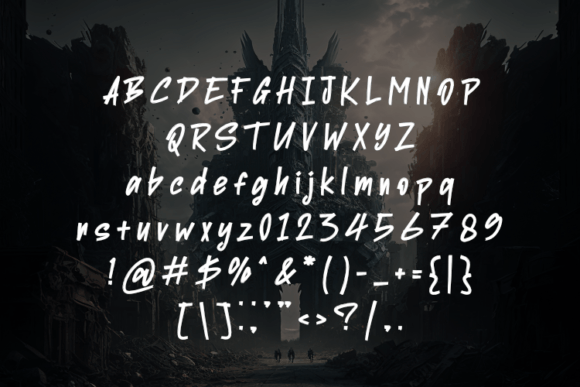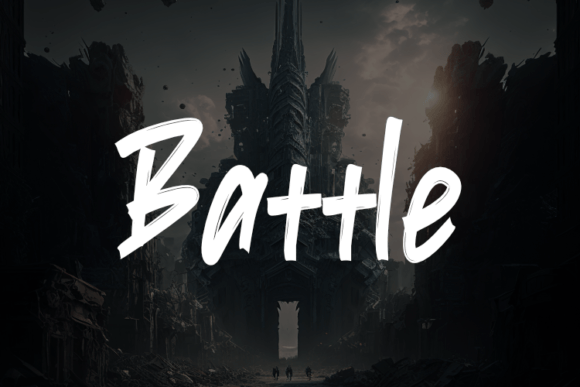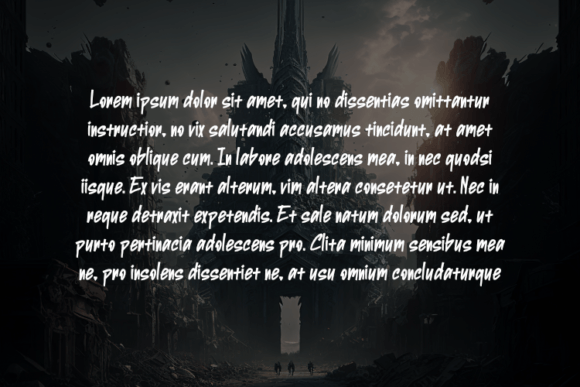
Unlock the Power of Games Street Font
Have you ever found yourself staring at a blank canvas, waiting for the perfect font to spark your creativity? For many designers, this is a familiar feeling – the moment when the right font can make all the difference between a good design and a great one. That’s where the Games Street Font comes in – a dynamic, versatile font that adds a touch of style and boldness to any design.
This creative tool is designed to elevate your design portfolios, whether you’re working on clothing, t-shirts, or a wide range of other products. With its striking appeal and adaptability, the Games Street Font seamlessly integrates into various software applications, making it a valuable asset for designers of all levels.
Key Features of Games Street Font
- Unique Characteristics: Games Street Font is designed to evoke a nostalgic feel, reminiscent of classic video games and arcade culture. Its unique blend of futuristic and retro elements sets it apart from other fonts.
- Style Variations: This font includes multiple style variations, including Regular, Italic, Bold, and Bold Italic, providing designers with flexibility and creative options.
- Character Set: Games Street Font includes a comprehensive character set, including uppercase and lowercase letters, numbers, punctuation marks, and special characters, ensuring that designers have access to a wide range of typographic options.
- Scalability: Games Street Font is optimized for scalability, ensuring that it looks great in various resolutions and sizes, from small text to large headlines.
Games Street Font Review
Overall, I think the Games Street Font has a lot of potential, but it also comes with some limitations. Let’s dive into what works well and what doesn’t.
- Casual and fun vibe: The font has a great, laid-back feel that’s perfect for gaming-related projects.
- Highly legible: The font is easy to read, even at smaller sizes, making it great for long blocks of text.
- Customizable: The font comes with a range of styles and weights, giving you plenty of options for customization.
- Not ideal for formal projects: The font’s casual vibe might not be suitable for more formal projects, like business reports or academic papers.
- Limited support for certain languages: I found that the font didn’t support some languages, like Japanese or Chinese, which could be a problem for international projects.
- Not as sophisticated as other fonts: Compared to other fonts on the market, the Games Street Font feels a bit basic and lacking in sophistication.
Overall, I’d say the Games Street Font is a solid choice for gaming-related projects, but it might not be the best option for more formal or international projects. With a bit more development, this font could really shine!
The Games Street Font is ideal for:
Designing gaming-related materials, such as posters and flyers.
Creating bold and eye-catching titles and headings.
Adding a dynamic and playful touch to your designs.